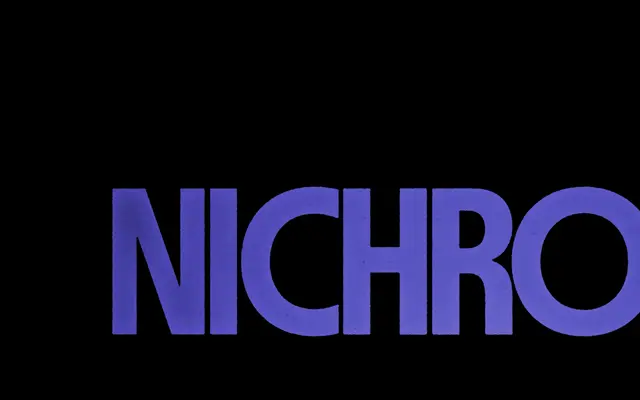
MD Nichrome
A display typeface distilling the genre typography of 1970s and early 1980s sci-fi paperbacks, drawing on multiple dry transfer and phototypesetting-era sources rather than reviving any single face.
Eight weights from Infra to Ultra, each with an oblique companion, delivered as a two-axis variable font covering weight and slant. The design synthesises details from numerous typefaces of the era that were originally produced for dry transfer or phototypesetting and never received a considered digital translation. Extended Latin coverage spans a very broad range of languages, making it practical well beyond purely decorative use.
Explicitly designed as a display typeface referencing the genre typography of 1970s and early 1980s sci-fi paperbacks, drawing on dry transfer and phototypesetting-era letterforms rather than any single historical revival.